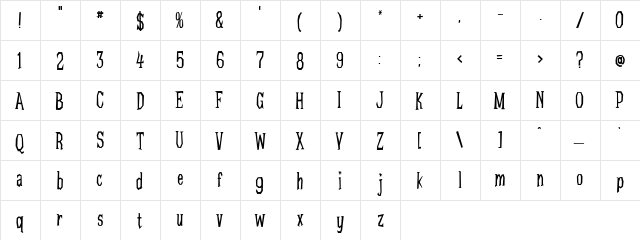
Starico 44 Regular
Starico 44 takes a measured approach to typography — its balanced proportions and neutral character make it a reliable workhorse for both digital and print work.